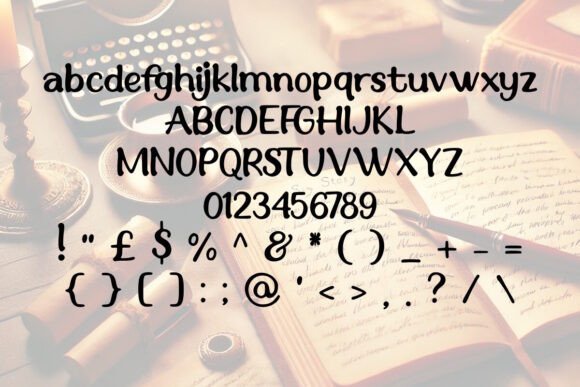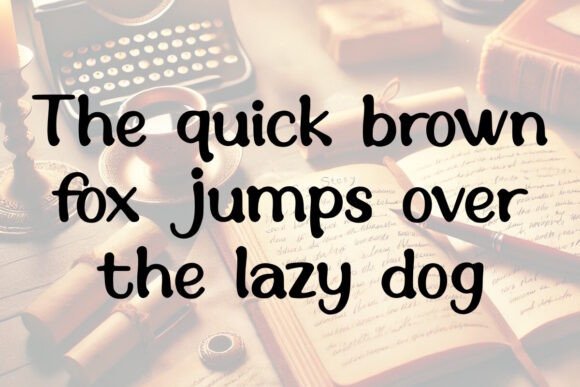
Dear Diary Font: A Whimsical and Cozy Handwritten Font for Your Design Projects
Are you looking for a font that can add a touch of warmth and personality to your design projects? Look no further than the Dear Diary font, a whimsical and cozy handwritten font that captures the charm of a personal journal. With its playful curves and natural flow, this font is perfect for projects that need a heartfelt, nostalgic touch.
The Charm of Dear Diary Font
Dear Diary font is a beautiful, hand-crafted font that is designed to evoke the feeling of a personal journal. Its playful curves and natural flow make it perfect for a wide range of design projects, from stationery and invitations to social media graphics and more. The font’s whimsical and cozy feel makes it ideal for designers and crafters who want to add a touch of personality to their work.
Whether you’re crafting stationery, invitations, or social media graphics, Dear Diary font is the perfect choice. Its versatility and charm make it suitable for a wide range of design projects, including:
- Stationery and invitations: Add a touch of warmth and personality to your stationery and invitations with Dear Diary font.
- Social media graphics: Use Dear Diary font to create engaging and eye-catching social media graphics that will capture the attention of your audience.
- Blog and website design: Add a touch of whimsy and charm to your blog or website with Dear Diary font.
- Crafting and DIY projects: Use Dear Diary font to add a personal touch to your crafting and DIY projects, such as handmade cards and gift tags.
What Makes Dear Diary Font So Special?
So, what makes Dear Diary font so special? Here are just a few things that set it apart:
- Hand-crafted: Dear Diary font is a hand-crafted font, which gives it a unique and personal feel.
- Whimsical and cozy: The font’s whimsical and cozy feel makes it perfect for projects that need a heartfelt, nostalgic touch.
- Playful curves: The font’s playful curves and natural flow make it easy to read and fun to use.
- Versatile: Dear Diary font is versatile and can be used for a wide range of design projects.
Tips for Using Dear Diary Font
Here are a few tips for using Dear Diary font in your design projects:
- Use it for headings and titles: Dear Diary font is perfect for headings and titles, where its playful curves and whimsical feel can really shine.
- Pair it with other fonts: Dear Diary font pairs well with other fonts, such as serif and sans-serif fonts. Experiment with different pairings to find the one that works best for your project.
- Use it in combination with images: Dear Diary font looks great in combination with images, especially illustrations and photographs with a warm, nostalgic feel.
In conclusion, Dear Diary font is a whimsical and cozy handwritten font that is perfect for designers and crafters who want to add a touch of warmth and personality to their design projects. Its playful curves and natural flow make it easy to read and fun to use, and its versatility makes it suitable for a wide range of design projects. Whether you’re crafting stationery, invitations, or social media graphics, Dear Diary font is the perfect choice.